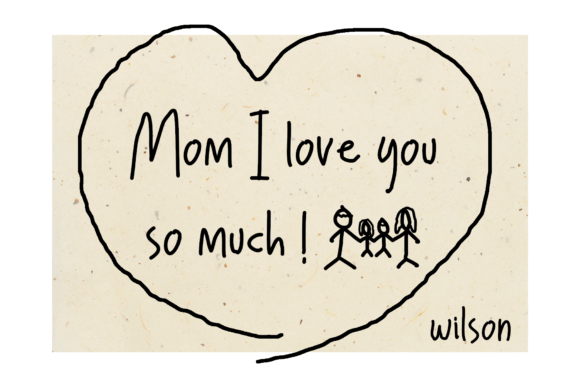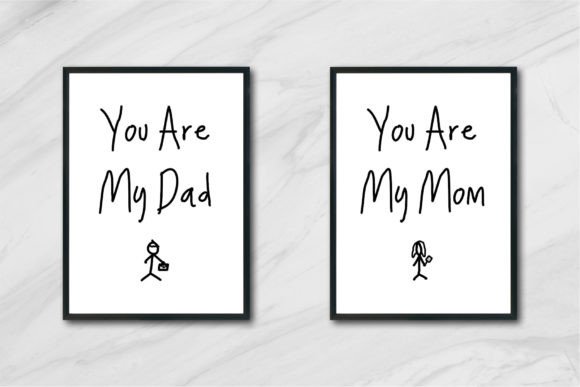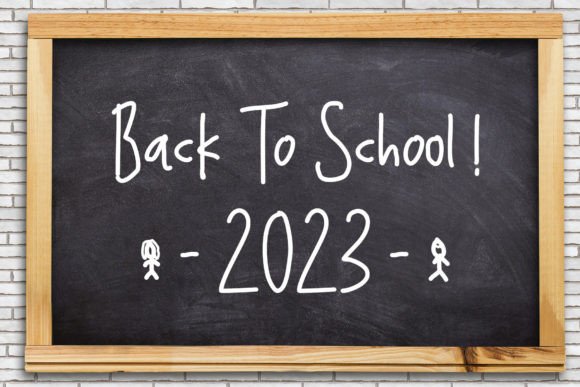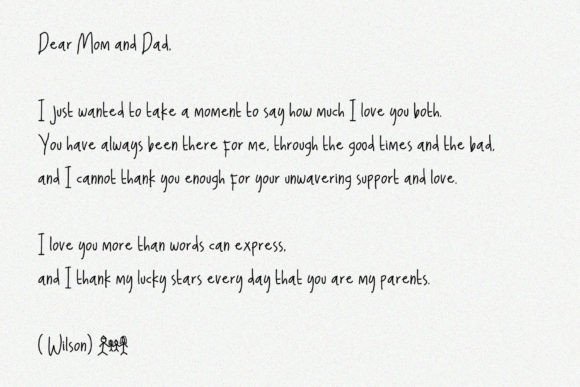
Mom I Love You so Much Font
About the Mom I Love You so Much Font
Experience the unique personality of Mom I Love You so Much Font, a font designed for impact. Mom I Love You so Much is a simple and cute script font. Its smooth curves and handwritten style gives it a personal feel, making it great for invitations, logos, and more. The simplicity of the font makes it easy to read and adds a playful touch to any design.
This font’s playful charm makes it ideal for projects requiring a friendly and approachable aesthetic, such as children’s books, wedding stationery, or branding for small businesses focused on handmade goods or personal services. It works exceptionally well in headlines, short quotes, and logos, adding a touch of warmth and personality. However, its script nature and relatively thin strokes make it less suitable for body text or UI elements where high readability is paramount.
Pair it with a clean sans-serif like Open Sans for a balanced contrast or a geometric sans-serif like Montserrat for a more modern feel. For a sophisticated touch, consider pairing it with a delicate serif font such as Lora. Avoid pairing it with other script fonts, as this could create visual clutter and reduce legibility.
The overall personality is undeniably cheerful and approachable; it conveys a sense of warmth and handmade charm. Its informal style may not be suitable for projects requiring a high degree of formality or seriousness.
Mom I Love You so Much Font Usage Examples
Mom I Love You so Much Font Example